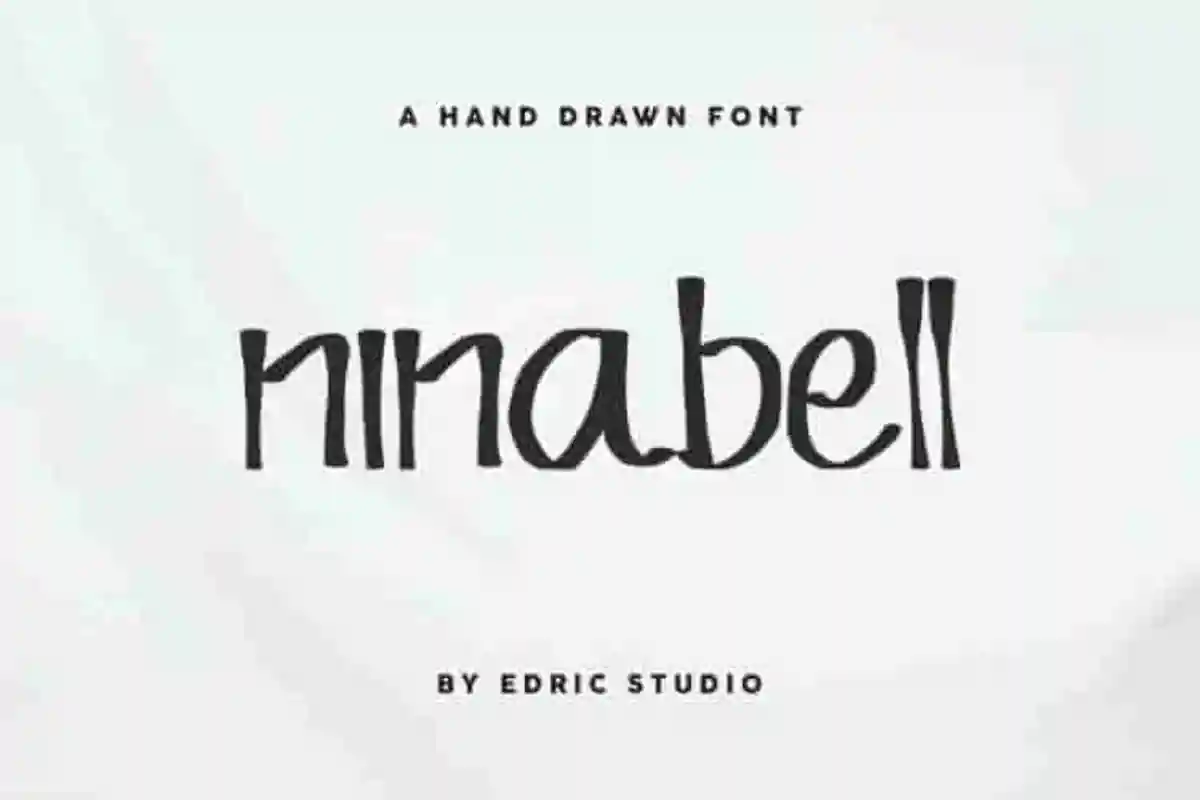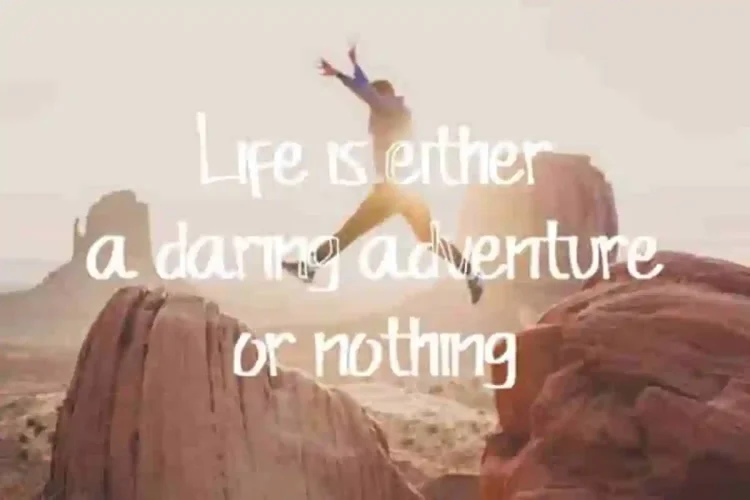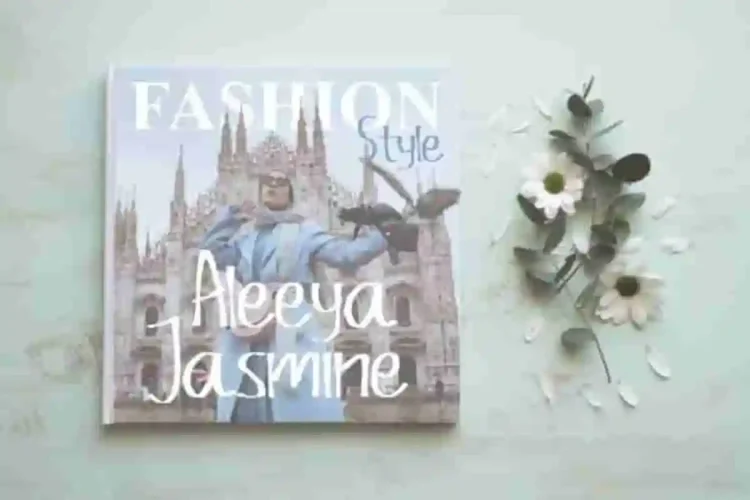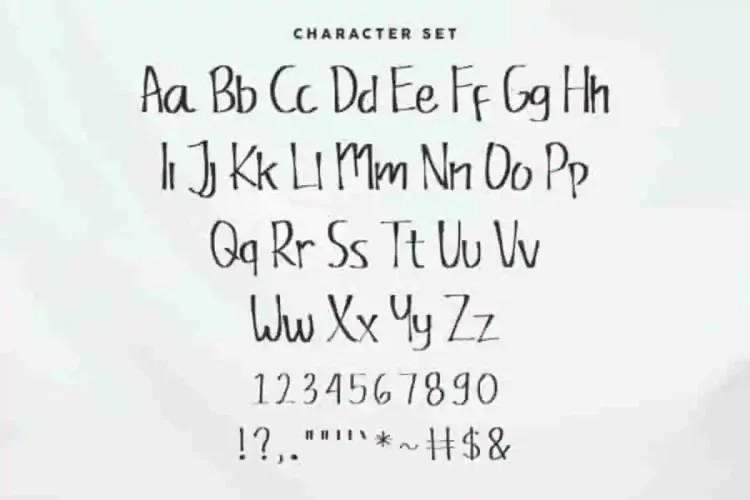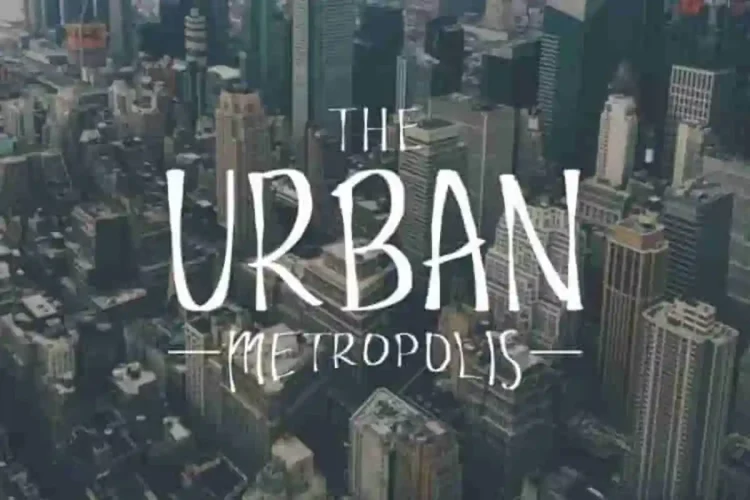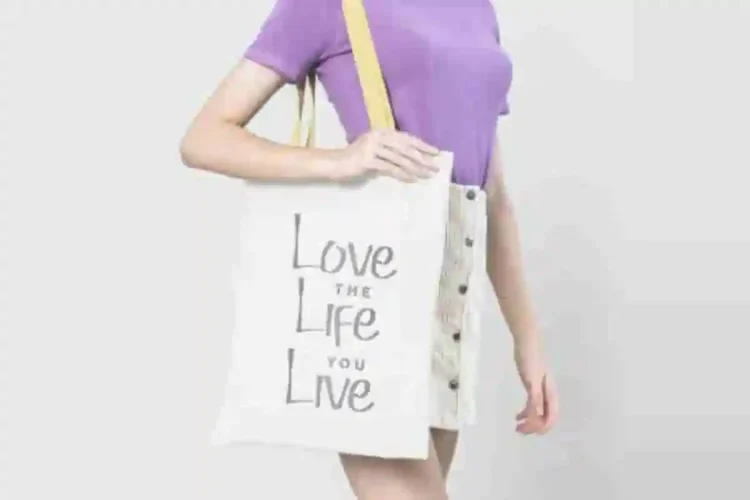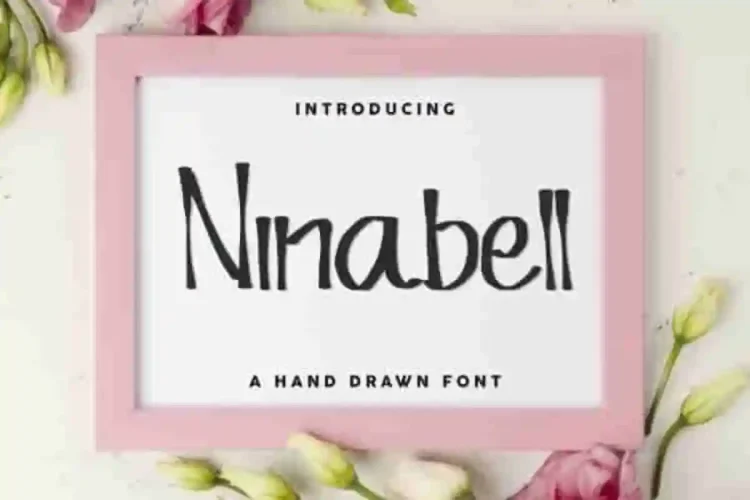
Ninabell Handwritting Brush Font
Introducing our newest font from our lovely artist :  Ninabell Handwritting Brush Font
This is a hanmade font, handcrafted from our Studio here in, Indonesia. The artists/designers of this unique tyeface is Ali and Suci.
Ninabell Handwritting Brush Font is a display script typeface with square brush style. This font has a cool characters set, perfectly managed with well spaced and kerning.
Ninabell Handwritting Brush Font will be great for any projects including : branding, logo, stationery, business card, signage, flyer, brochure etc. Almost all industries will be match for this typeface: comic, events,  florist, gardening, makeup artist, travel, cartoon, musician etc